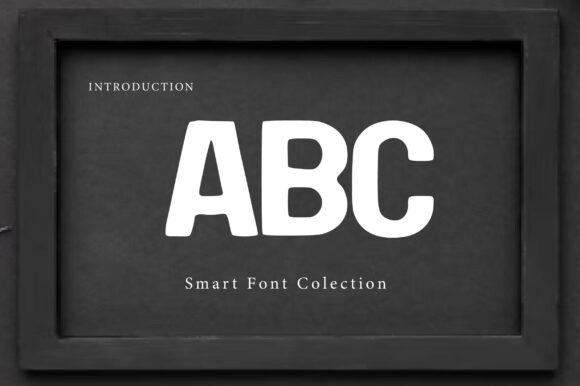
Command Attention with Bold Ultra Font: The Powerhouse of Typographic Strength
In the world of typography, there’s a font that stands out from the rest, demanding attention and exuding confidence. Meet the Bold Ultra font, a robust and powerful typeface designed for those who want their message to be impossible to ignore. Inspired by the traditional slab-serif geometry of 19th-century wood type styles, Bold Ultra combines the best of the past with a modern, clean finish, making it the ultimate choice for high-impact headlines, cinematic titling, and authoritative branding.
A Legacy of Strength and Resilience
The Bold Ultra font draws its inspiration from the sturdy 19th-century wood type styles, which were known for their ruggedness and durability. These traditional typefaces were designed to withstand the test of time, and their bold, chunky strokes were perfect for grabbing attention in a crowded visual landscape. Bold Ultra takes this classic aesthetic and infuses it with a modern twist, resulting in a font that’s both nostalgic and cutting-edge.
Unmistakable Visual Impact
The heavy strokes of the Bold Ultra font make it exceptionally legible, even from a distance. This makes it perfect for applications where visibility is key, such as storefront signage, event posters, and digital hero sections. Whether you’re designing a bold editorial layout or a heavy-duty logo, Bold Ultra provides the visual weight needed to anchor your creative vision. Its commanding presence demands attention, making it impossible for viewers to look away.
Versatility and Pairing Options
While Bold Ultra is a powerhouse on its own, it can be paired with other fonts to achieve a professional balance. For body text, pair it with a minimalist sans-serif font to create a harmonious contrast between bold and understated. Alternatively, combine Bold Ultra with a light monospaced font for a technical edge, perfect for projects that require a mix of industrial and refined aesthetics. The versatility of Bold Ultra makes it an excellent addition to any designer’s toolkit.
Cinematic Titling and Authoritative Branding
Bold Ultra is not just a font; it’s a statement. Its bold, confident strokes make it perfect for cinematic titling, where visual impact is crucial. Imagine your movie or video title emblazoned across the screen in Bold Ultra, grabbing the viewer’s attention and setting the tone for an unforgettable experience. Similarly, for brands that require a serious yet approachable tone, Bold Ultra is the ultimate choice. Use it to create a logo that exudes authority and confidence, or to craft marketing materials that demand attention.
Designing with Bold Ultra
When working with Bold Ultra, it’s essential to consider the context and intended use of the font. For headlines and titles, use the font in its boldest weight to maximize impact. For body text or supporting materials, consider pairing Bold Ultra with a complementary font to create visual interest. Don’t be afraid to experiment with different colors, textures, and effects to make Bold Ultra truly shine. Whether you’re designing a print brochure or a digital campaign, Bold Ultra is the perfect choice for designers and crafters who want to make a statement.
In conclusion, the Bold Ultra font is a powerhouse of typographic strength, designed for those who want their message to be impossible to ignore. With its robust 19th-century inspiration and modern, clean finish, Bold Ultra is the ultimate choice for high-impact headlines, cinematic titling, and authoritative branding. Its exceptional legibility, versatility, and pairing options make it an excellent addition to any designer’s toolkit. Whether you’re designing a heavy-duty logo or a bold editorial layout, Bold Ultra provides the visual weight needed to anchor your creative vision. So why settle for a ordinary font when you can command attention with Bold Ultra?